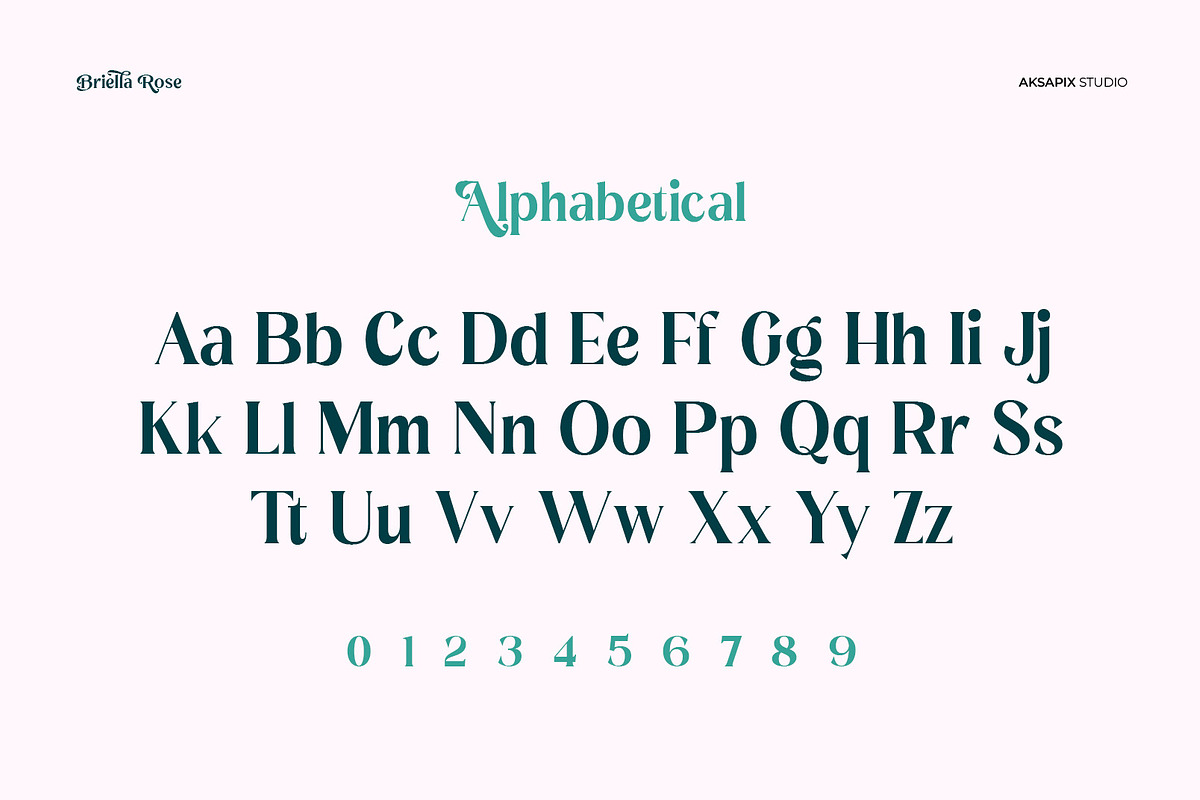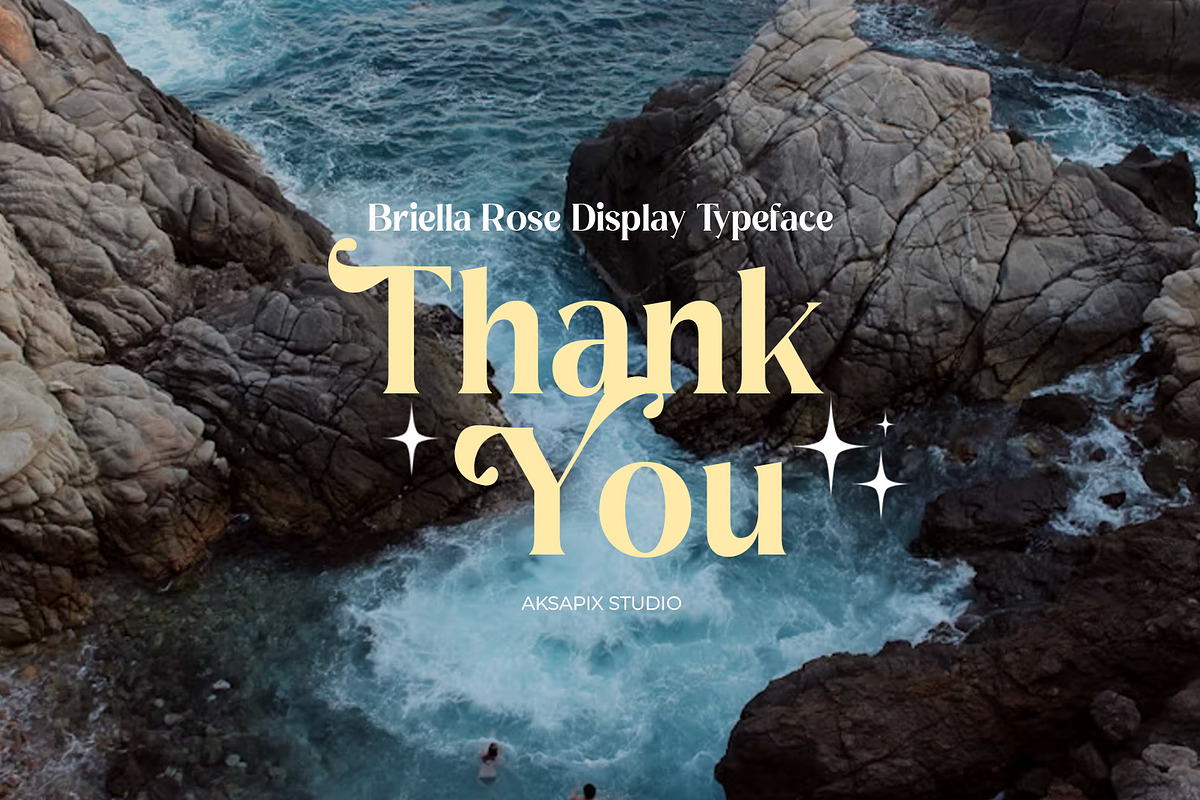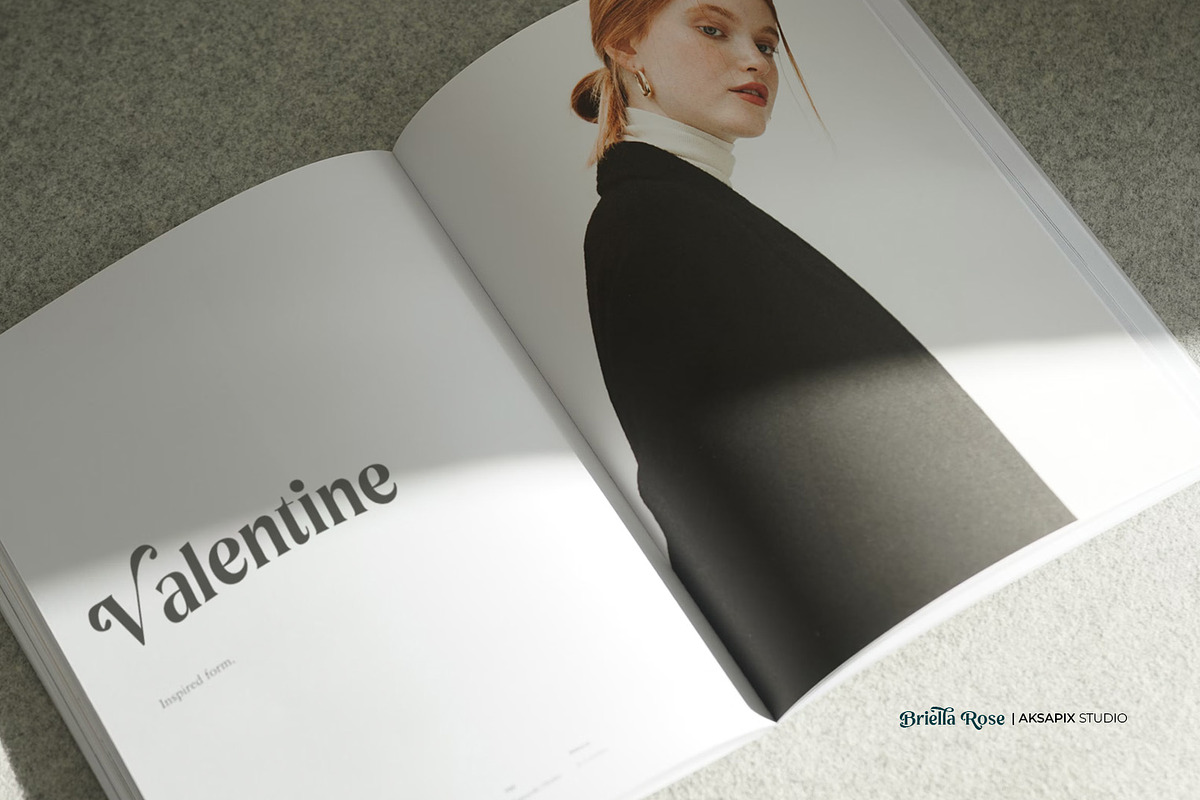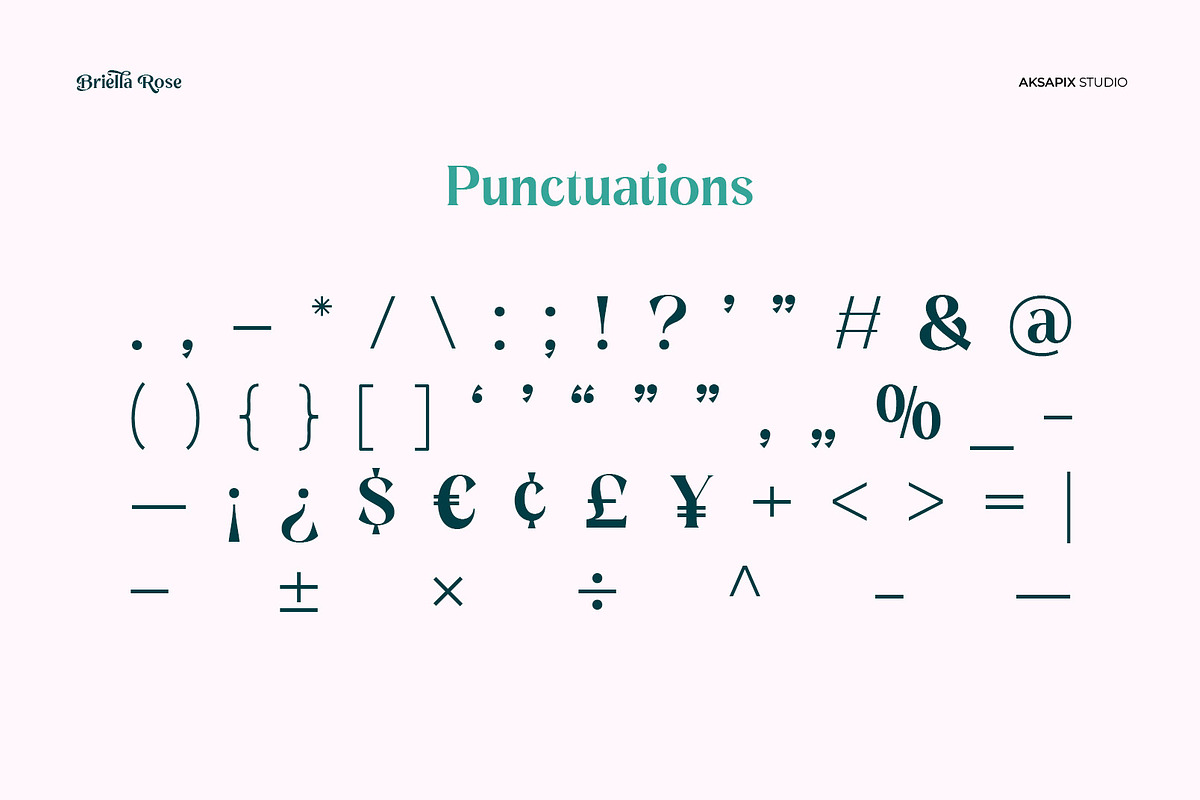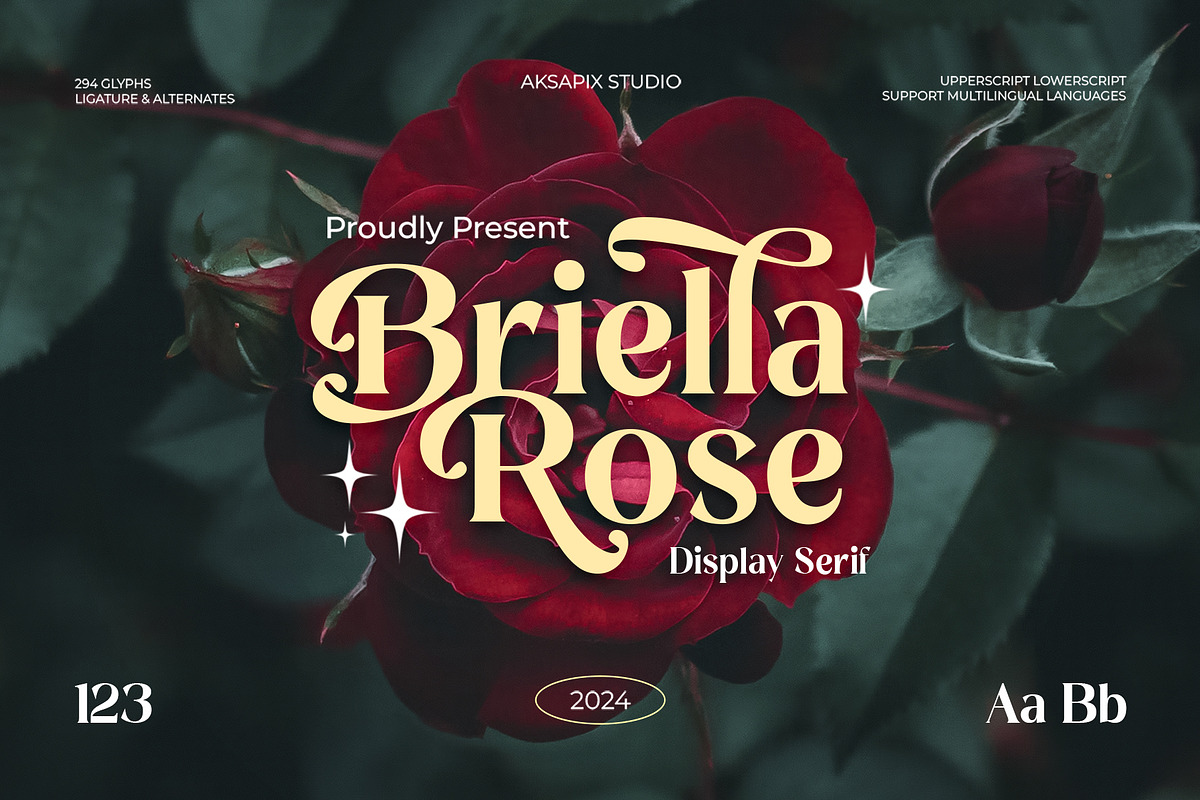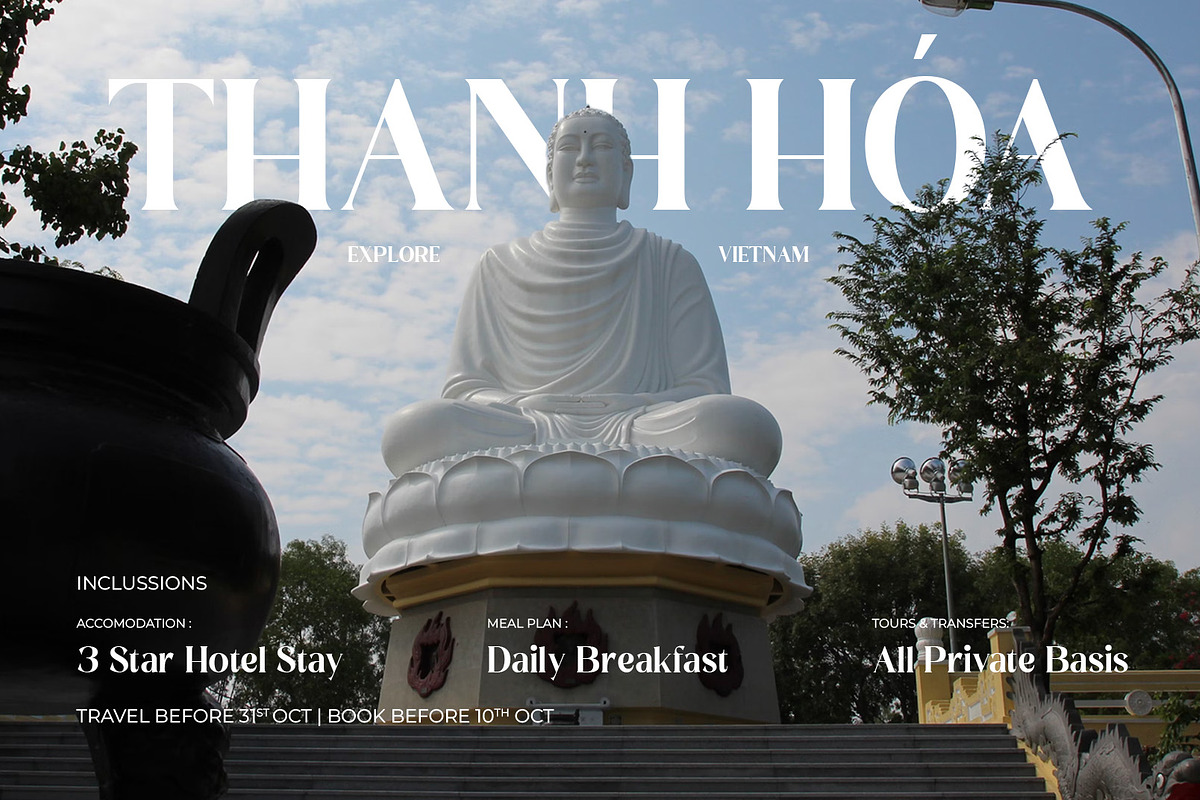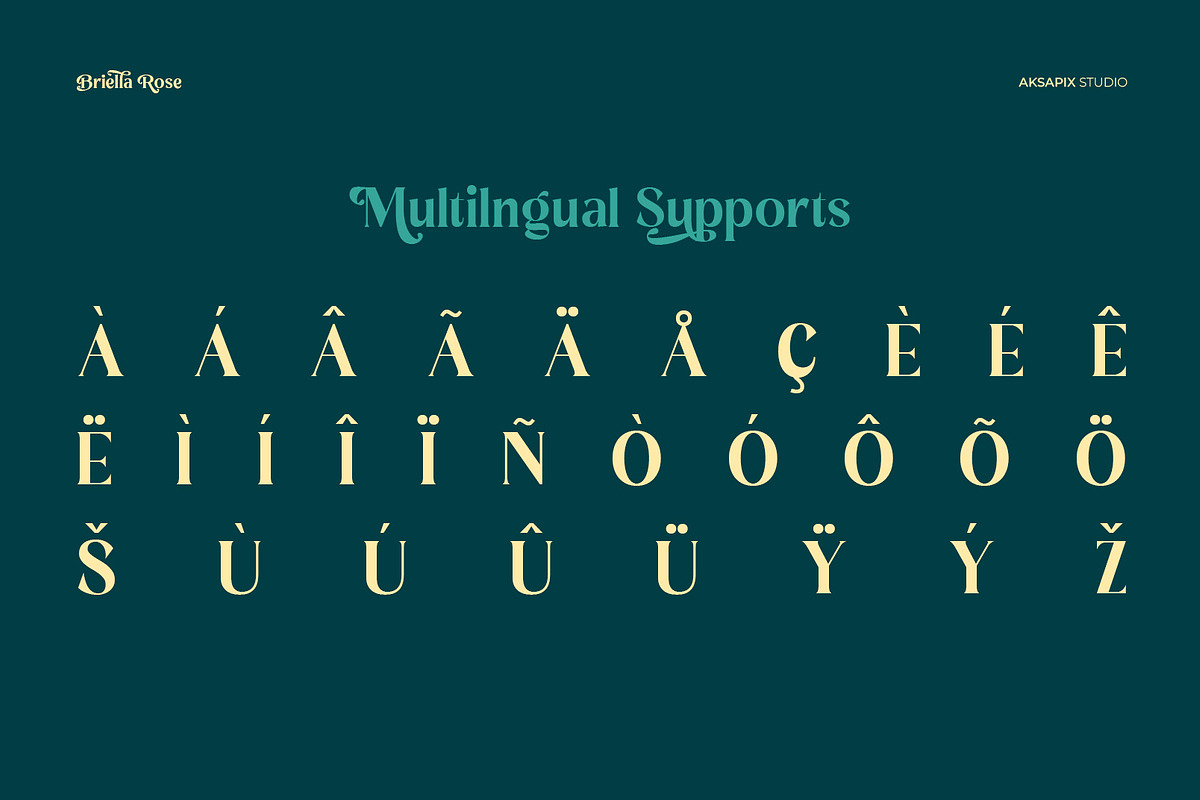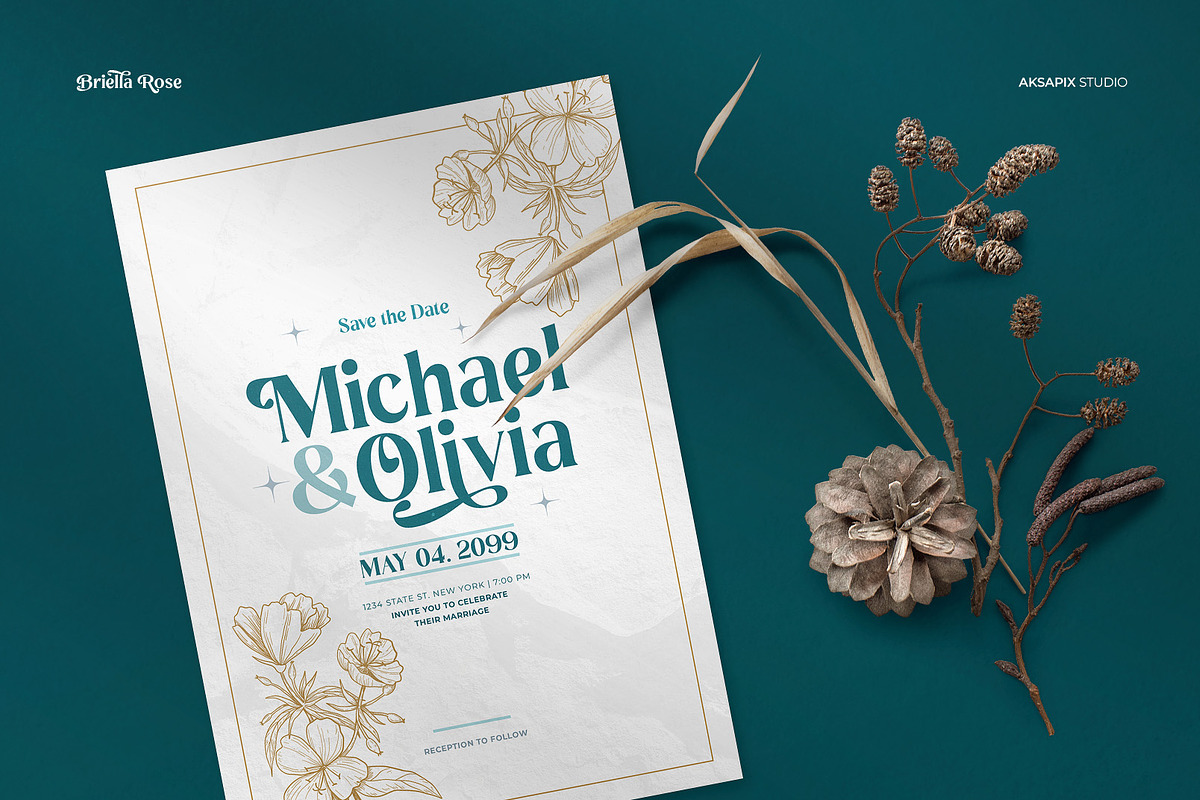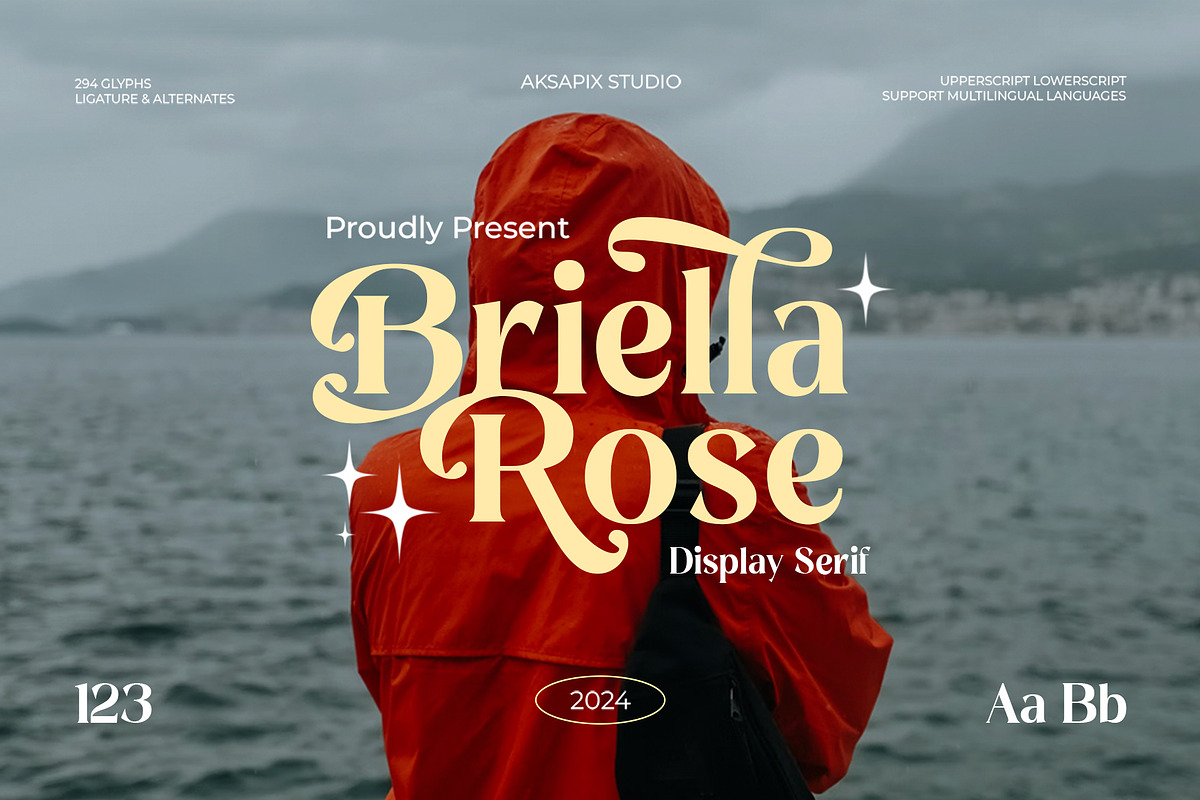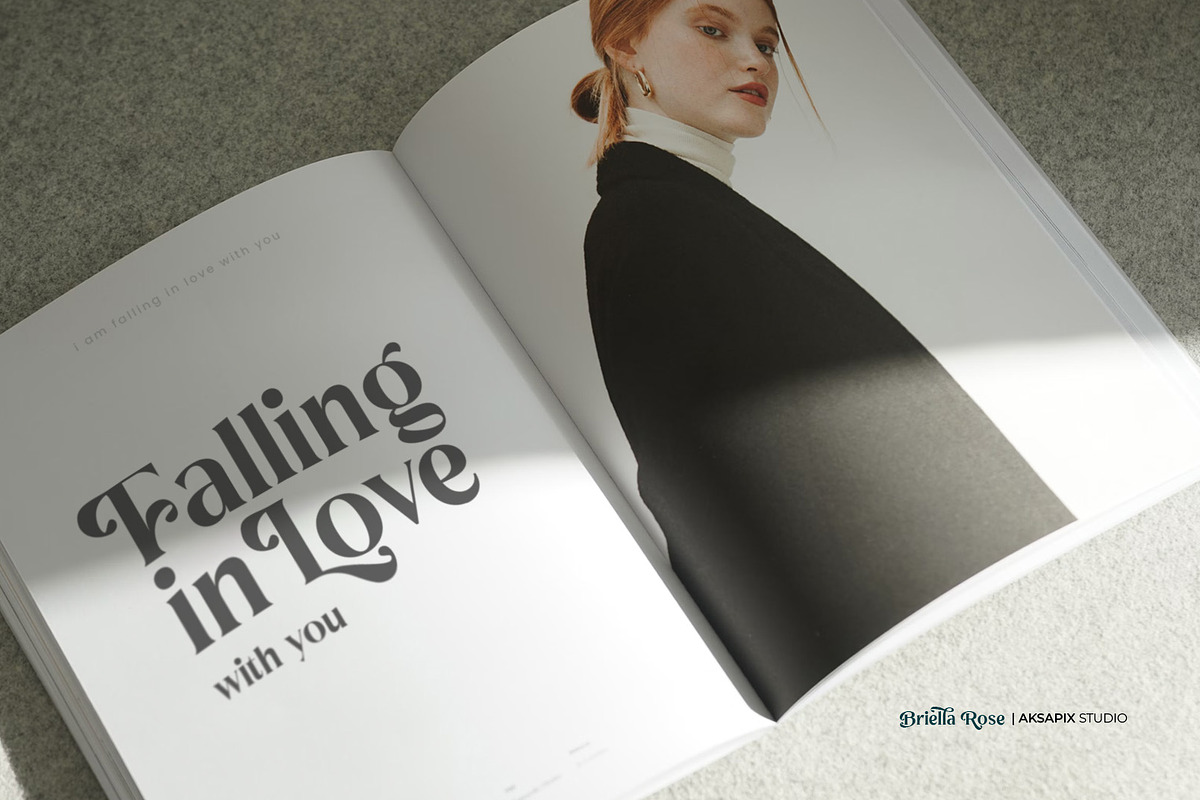
Briella Rose - Elegant Display Serif
Introducing Briella Rose - Beautiful Display Serif Font
Get ready to elevate your designs to new heights with Briella Rose - the epitome of beauty and sophistication in the world of typography. With its graceful serifs and enchanting curves, Briella Rose adds a touch of timeless elegance to any project. Whether you're designing wedding invitations, branding materials, or editorial layouts, Briella Rose shines in every context, adding a touch of sophistication and charm to your creations.
Punctuation & Numbers
From elegant wedding invitation design to high-end branding projects, Briella Rose is the perfect choice for designers who demand nothing but the best. Elevate your designs with Briella Rose and let its beauty and grace speak for itself.